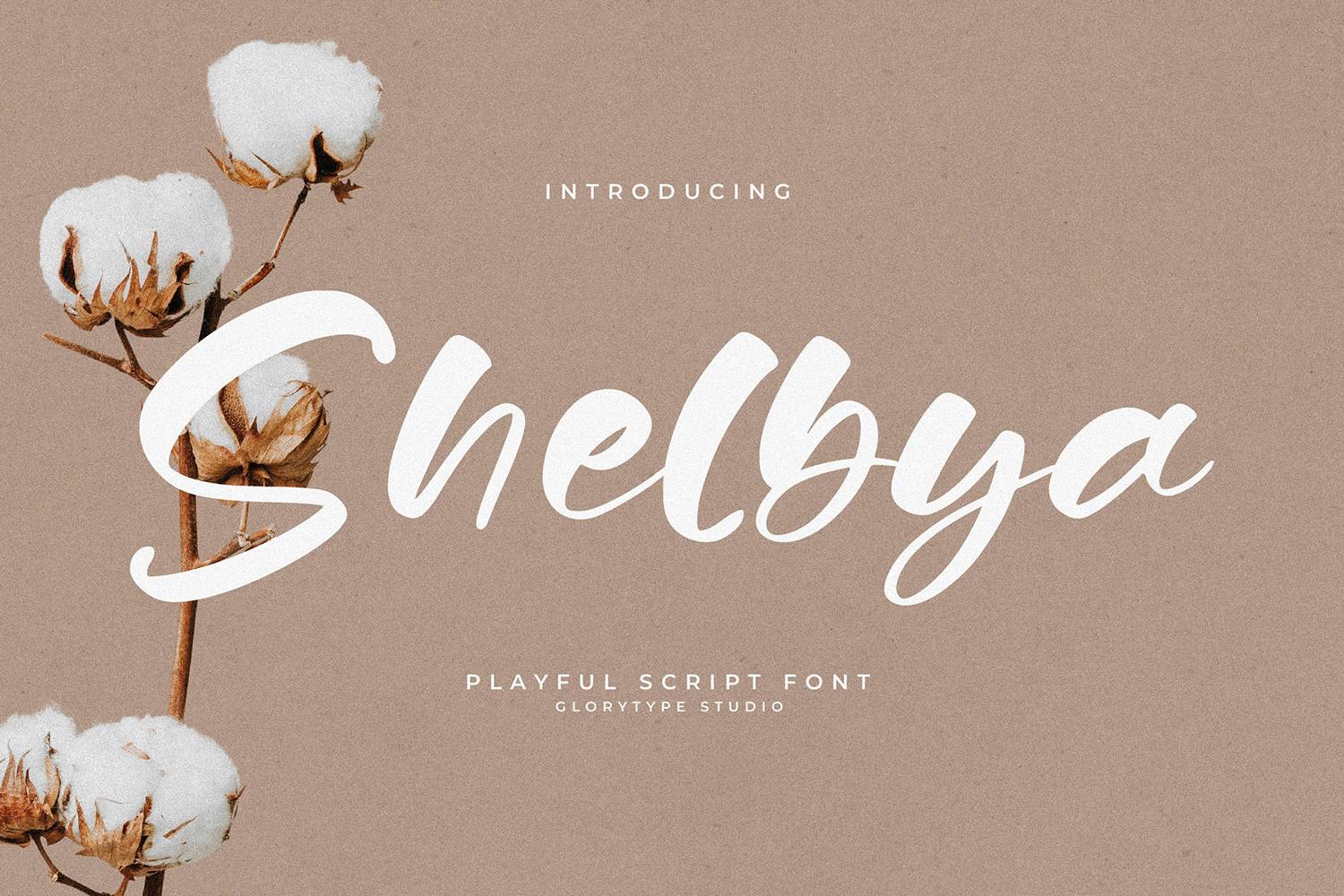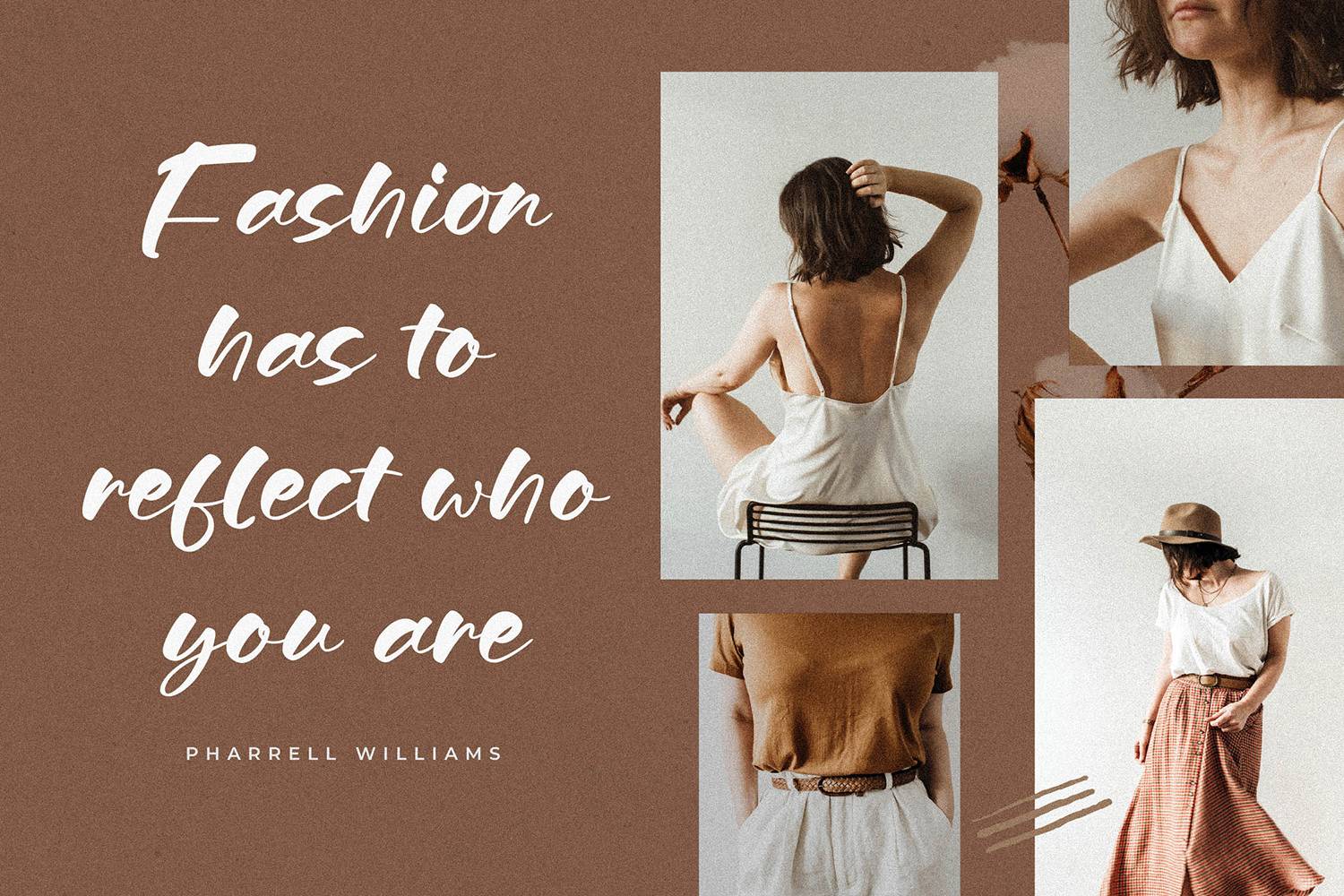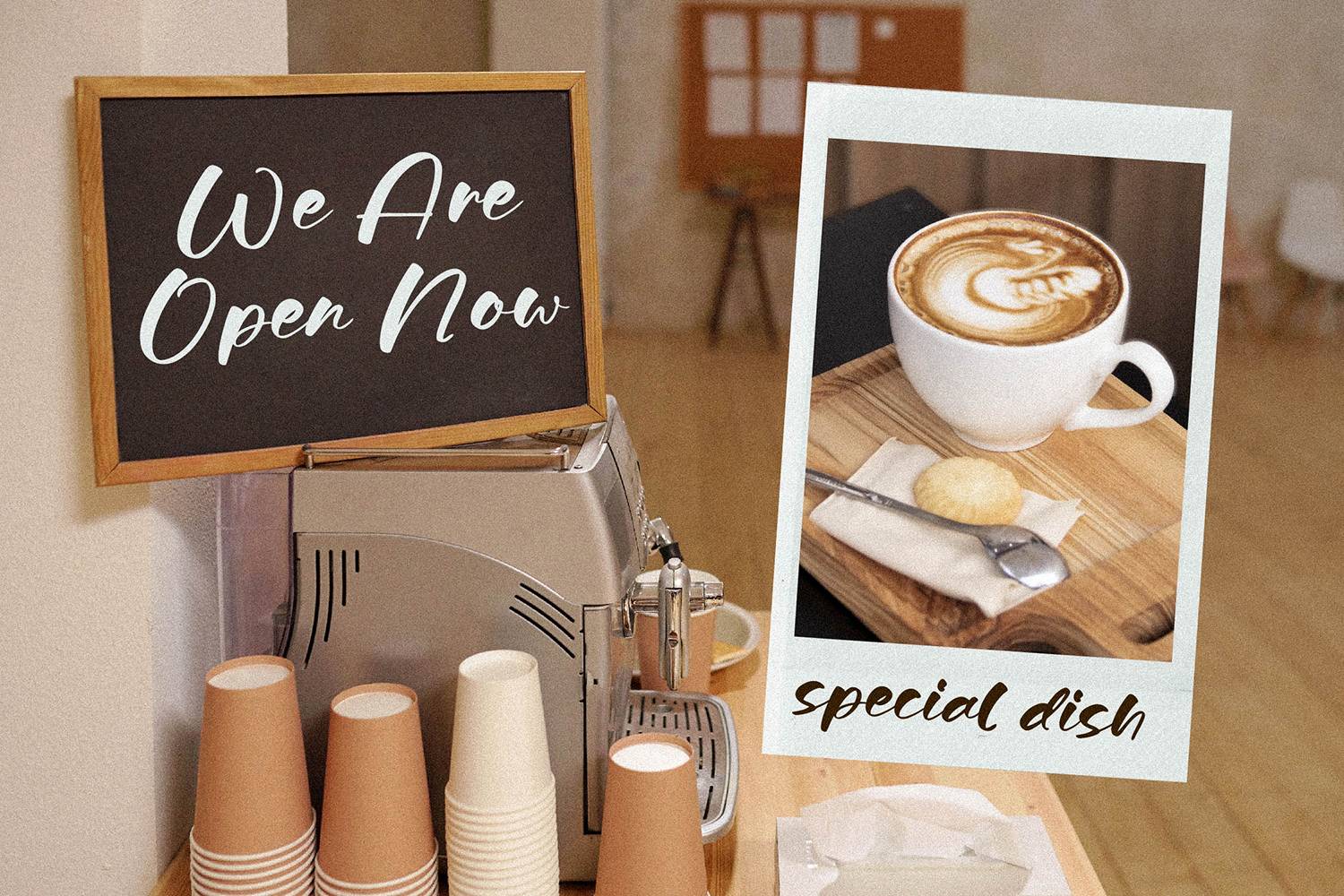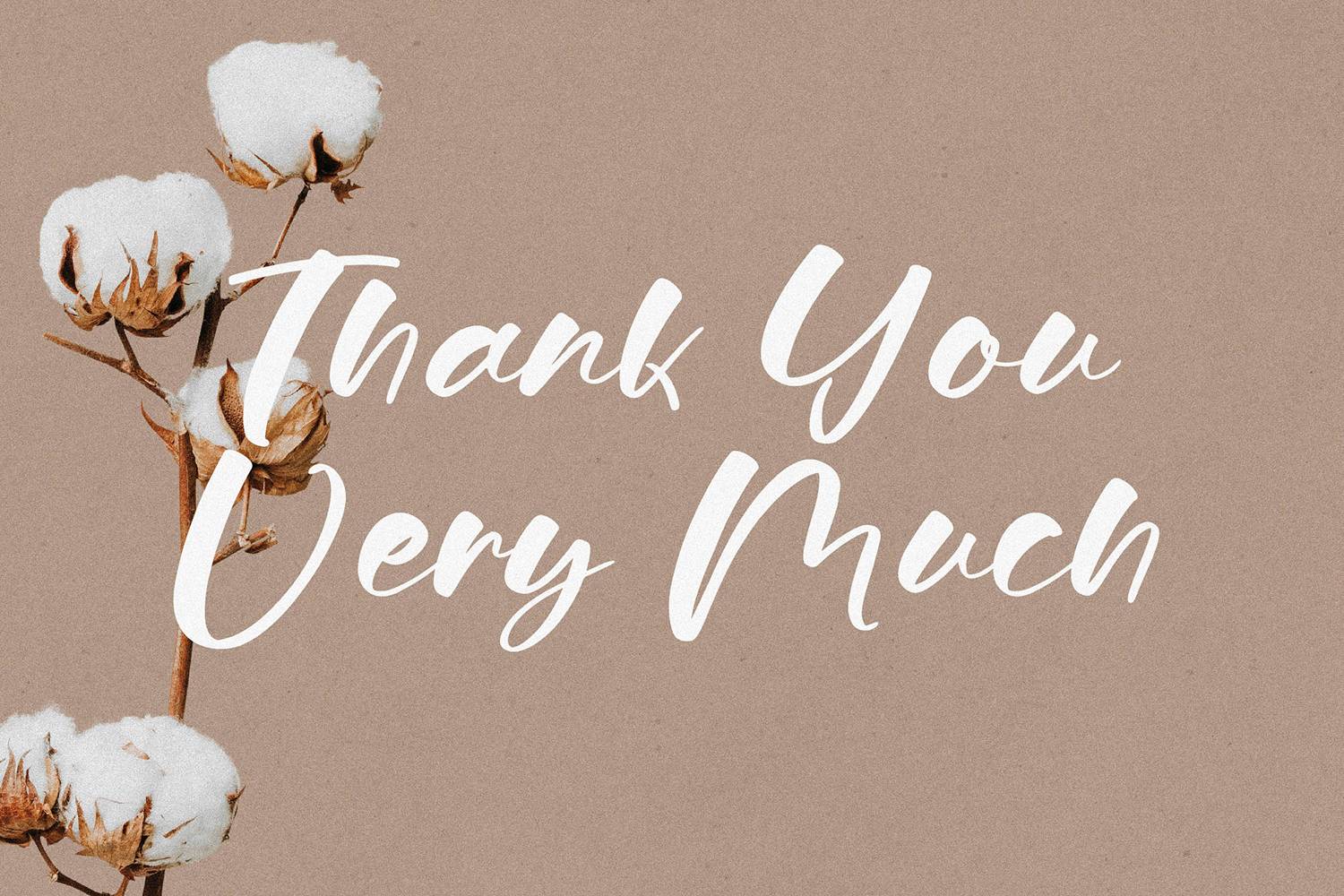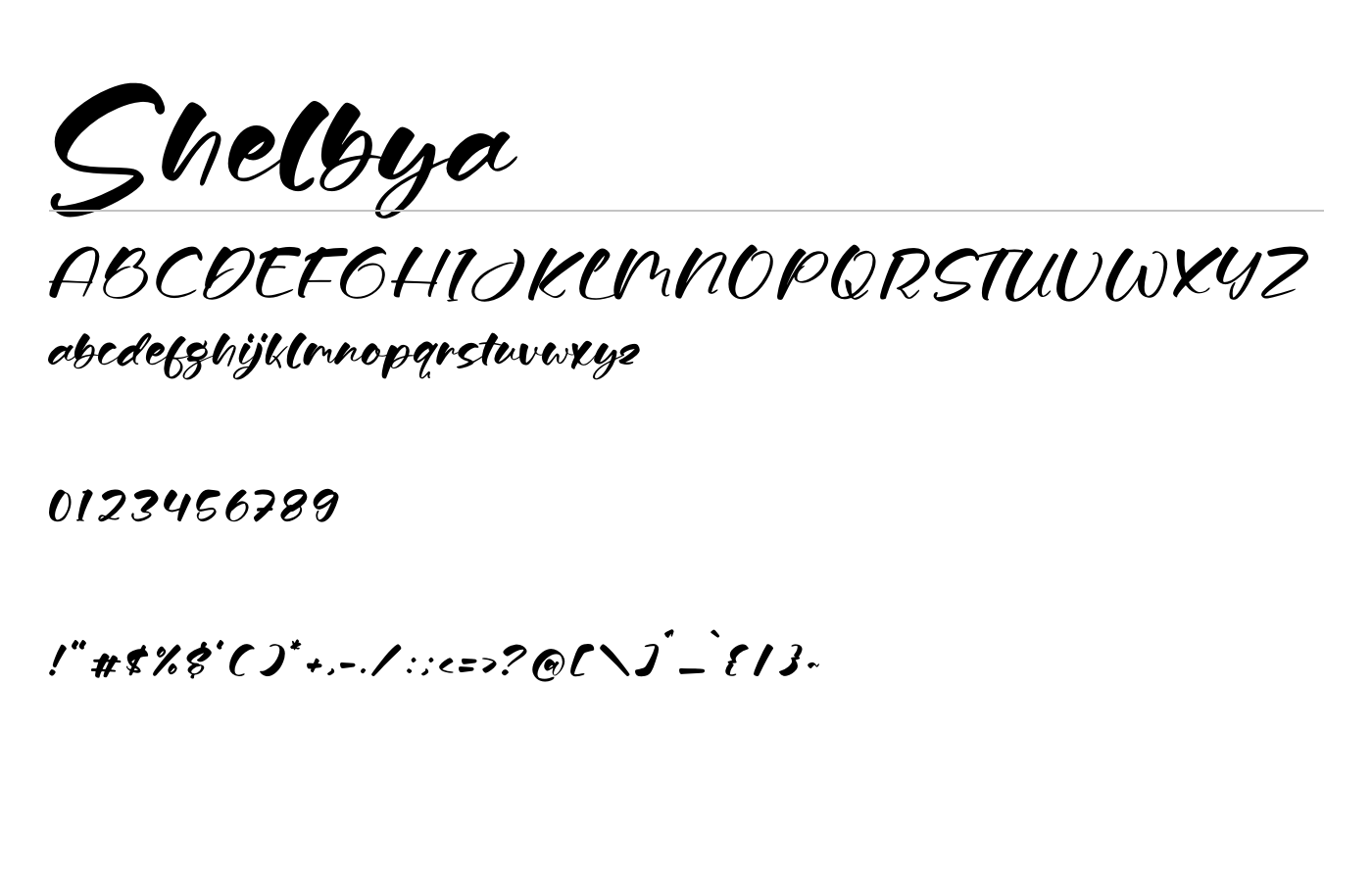
Shelbya is a lively script font with a smooth, flowing style that captures the charm of modern calligraphy. Its medium weight and fluid strokes give it an elegant yet casual feel, making it ideal for creative branding, invitations, and eye-catching headlines. This font works beautifully where a personal, handcrafted appearance is desired, adding warmth and personality to any design.
Shelbya Font
About Shelbya Font